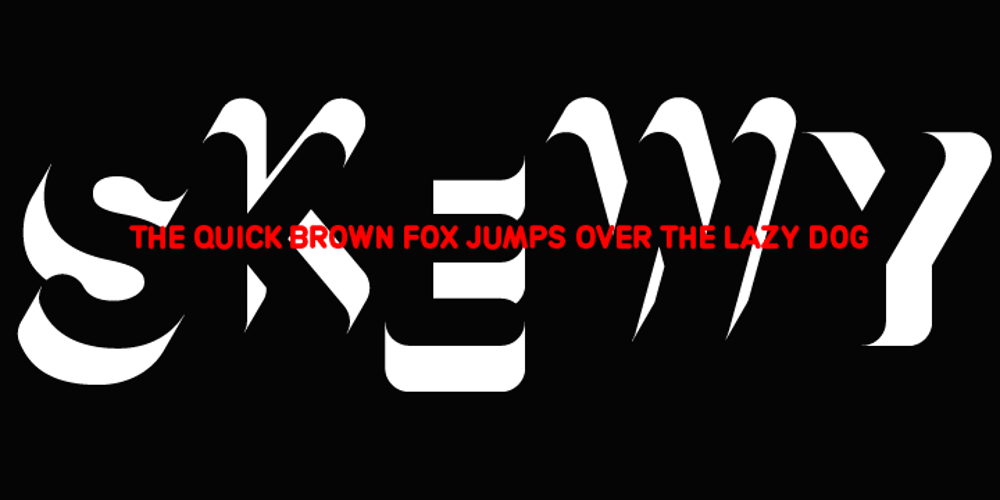
AT Move Skewy
AT Move Skewy font
AT Move Skewy Font Family was designed by André Toet, Jasper Nijssen and published by André Toet Design. AT Move Skewy contains 2 styles and family package options. Here it is, the 15th font by André Toet: SKEWY. Based on early sketches by André Toet going as far back as 1974. In fact it’s another 3D alphabet, but this time the effect is created by the light and shadows from a revolving imaginary sun. The font consists of a shadow type and we’ve added the solid version as a bold bonus ! Concept/Art Direction/Design: André Toet © 2017